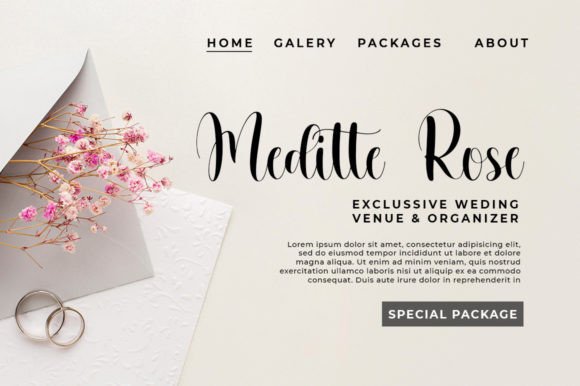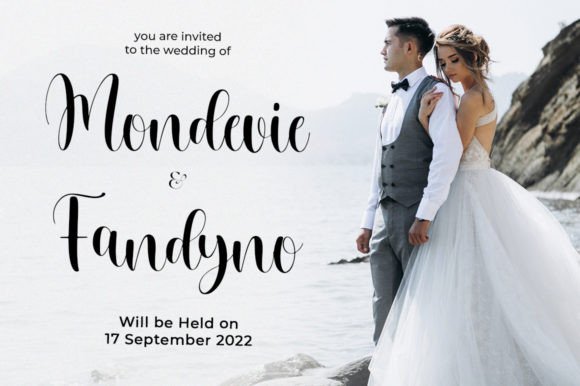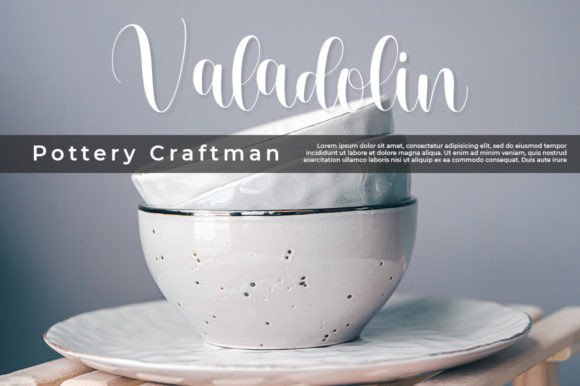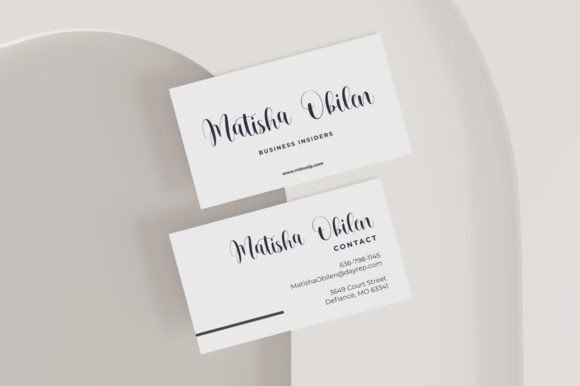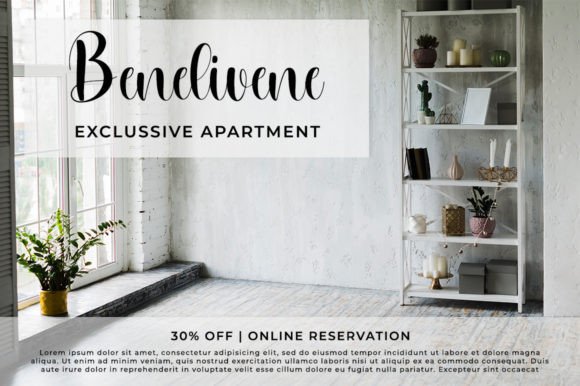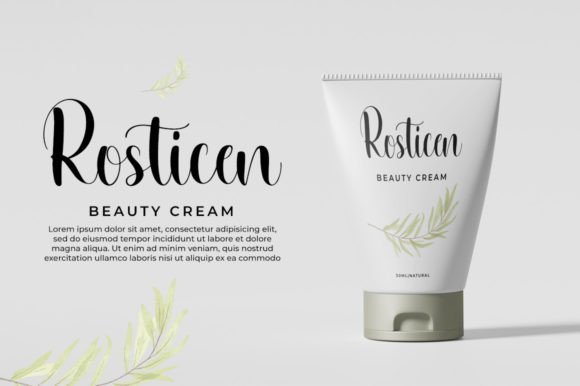
Introduction to Nephilie Font
Have you ever found yourself scribbling down ideas in a notebook, only to have that perfect phrase or sentence inspire a whole new creative project? For designers, that moment of inspiration can be a game-changer, and the right font can make all the difference. That’s where the Nephilie Font comes in – a stylish script font that adds a personal touch to your latest art project.
With its elegant, classy, and modern look, the Nephilie Font is perfect for designers who want to give their projects a high-quality, transparent background that truly stands out. Whether you’re working on a logo, branding, invitation, or social media post, this font is a valuable design resource that’s sure to elevate your work. And the best part? It’s available for free download, making it a must-have for any creative project.
Key Features of Nephilie Font
• High-quality design resource suitable for creative projects, offering a unique and elegant style.
• Transparent background, making it easy to use as a design element in various creative projects.
• Designed to be versatile, suitable for use in various design contexts, including logos, typography, and graphics.
• Unique characteristics include a modern aesthetic, clean lines, and a wide range of font styles, making it an ideal design resource.
Honest Review: Nephilie Font
As a designer, I’m always on the lookout for high-quality design resources to elevate my creative projects. Recently, I had the chance to work with the Nephilie Font, and I must say, it’s a great addition to any designer’s toolkit. ✨
One of the standout features of the Nephilie Font is its transparent background, which makes it incredibly versatile. Whether you’re working on a project that requires a clean, minimalist aesthetic or something more complex, this font is up to the task. Additionally, it’s available as a free download, making it an excellent resource for designers of all skill levels.
Here are some of the things that work well with the Nephilie Font:
• High-quality design that looks great on both screens and prints
• Transparent background for easy use in various design contexts
• May not be suitable for projects requiring a bold, attention-grabbing font
• Limited font styles available (although this may change in the future)
Overall, I’m impressed with the Nephilie Font and would recommend it to fellow designers. With its high-quality design, transparent background, and free download option, it’s an excellent resource to have in your toolkit. ⚠️ Just be aware of its limitations and use it accordingly.
How to Use Nephilie Font
The Nephilie Font is a high-quality design resource perfect for any creative project that requires a unique and elegant touch. With its transparent background, this font is highly versatile and can be used in a variety of design contexts.
Tips for Getting the Most Out of Nephilie Font
To get the most out of the Nephilie Font, be sure to pair it with a high-quality design and a transparent background. This will help the font stand out and create a professional-looking design.
Common Use Cases for Nephilie Font
The Nephilie Font is perfect for a variety of creative projects, including wedding invitations, business cards, and social media graphics. Its unique and elegant design makes it a great choice for any project that requires a touch of sophistication and style.